16 Best Rounded Sans Serif Typeface Options for Logos
Rounded typography has quietly become one of the safest choices for modern branding. It feels approachable without looking childish, clean without becoming sterile, and contemporary without chasing short-lived design trends.
A good rounded sans serif typeface can make a logo feel more human instantly. That matters whether you're building a tech startup, a coffee brand, a YouTube channel, or a SaaS product.
After reviewing dozens of modern typefaces, these are the rounded sans serif fonts that stand out most for logo work, visual identity systems, and digital branding. Many of them also include multiple weights, display variants, or outline styles that make them flexible across packaging, websites, and social graphics.
What to Look for in a Rounded Typeface
Not every rounded sans serif works well in a logo.
A few things usually matter more than designers expect:
- Letter spacing at small sizes
- Distinct uppercase characters
- Multiple weights
- Clean curves without distortion
- Strong readability on mobile
- Balanced geometry
Fonts that look impressive in giant Behance mockups sometimes fail completely in favicon size or social profile icons.
Testing logos at very small sizes is still one of the fastest ways to spot weak typography.
The 16 Best Rounded Sans Serif Fonts for Logos
1. Aquora
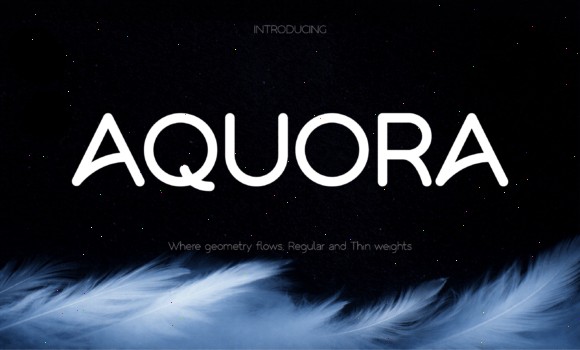
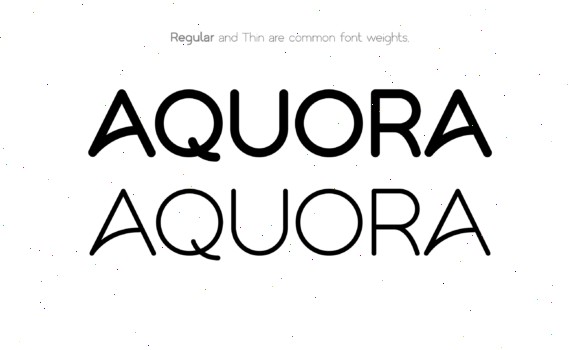
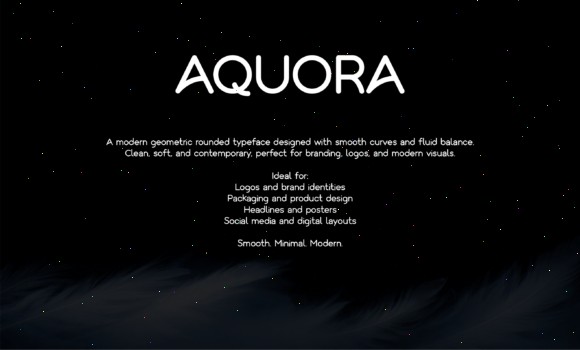
Aquora blends geometric construction with smooth rounded curves, creating a very polished modern look. The proportions feel balanced and minimal without becoming generic.
What stands out most is the flow between letters. It feels refined in a way many trendy rounded fonts don’t.
Best for:
- Luxury tech branding
- Modern skincare brands
- Clean startup identities
- Packaging design
Aquora works particularly well when paired with minimal icon marks.
2. Grotesko
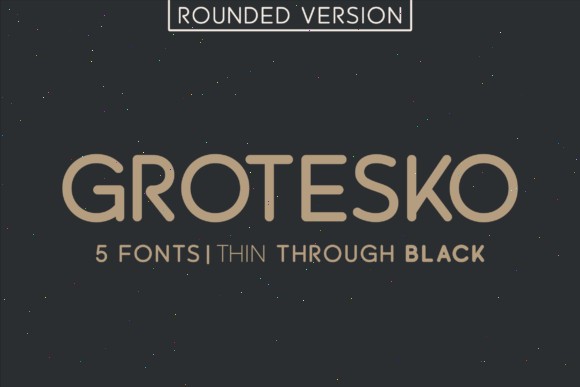
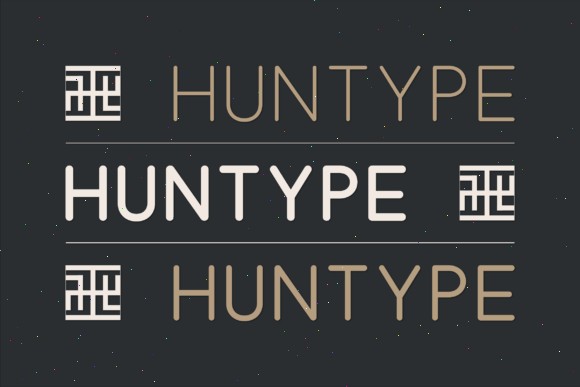
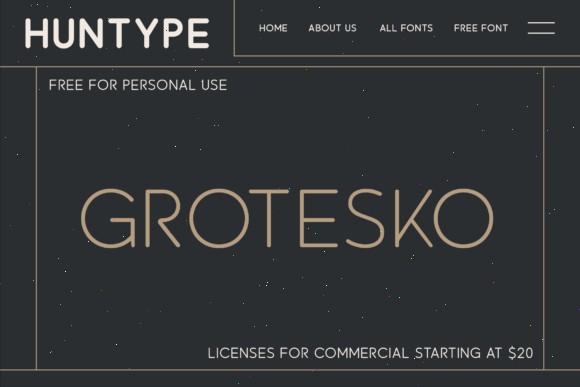
Grotesko leans into a cleaner all-caps aesthetic with subtle rounded edges and multiple weights.
This is the kind of typeface that works extremely well for:
- Streetwear logos
- Editorial branding
- Web headings
- Bold minimalist brands
The rounded black weight has strong visual impact without looking too aggressive.
One useful detail: the font family includes thin through black variations, making it flexible for larger identity systems.
3. Redzone
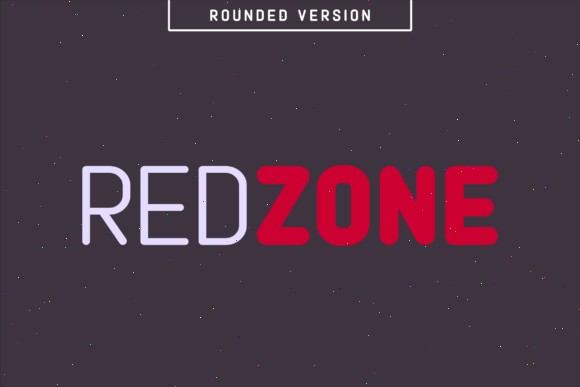
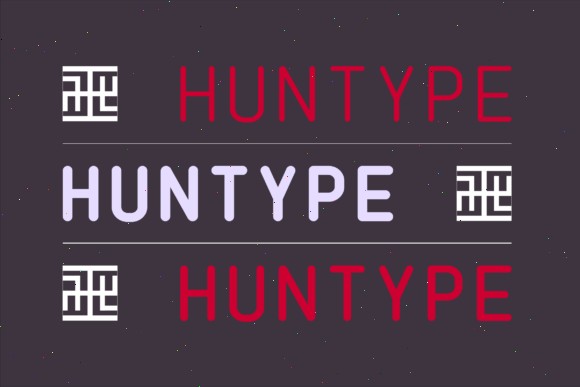
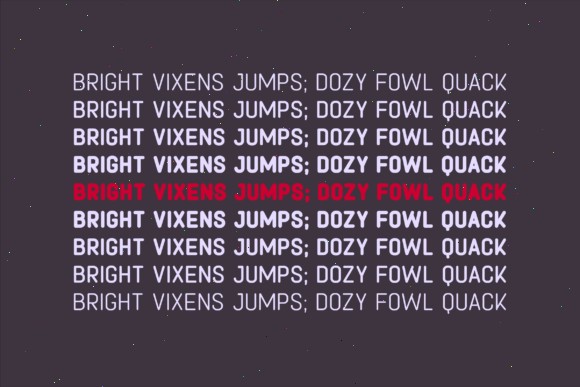
Redzone feels more athletic and energetic than most rounded sans serif fonts.
The uppercase construction gives it a sporty tone while the softened corners keep it approachable.
Best for:
- Esports branding
- Fitness products
- Gaming channels
- Performance-focused brands
The heavier weights look especially strong in logo lockups.
4. Vintage Corner
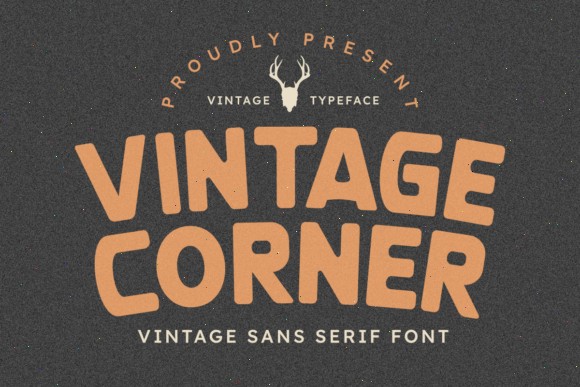
Vintage Corner mixes retro influence with rounded sans serif construction.
A lot of “vintage” fonts become difficult to use outside posters. This one stays practical.
Best for:
- Coffee shops
- Food packaging
- Apparel brands
- Retro-style logos
The rounded corners help the vintage look feel softer and more contemporary.
5. Kavo Inline
Kavo Inline has one of the most distinctive visual personalities in this list. The inline construction gives logos depth without requiring additional effects.
It feels futuristic and architectural at the same time.
Best for:
- Fashion branding
- Automotive projects
- Tech identities
- Album covers
This font performs best in larger logo applications rather than tiny interface text.
6. Nebulosa
Nebulosa combines futuristic styling with semi-rounded endings that soften the overall look.
One thing designers often appreciate here is the large family size. Multiple styles make it easier to build cohesive branding systems.
Best for:
- Sci-fi inspired branding
- Tech startups
- Gaming interfaces
- Motion graphics
The display versions work especially well in title treatments.
7. Red Giant
Red Giant keeps things bold and minimal while adding slight rounded corners for smoother typography.
The regular and outline versions pair nicely together for layered branding.
Best for:
- Bold packaging
- Podcast branding
- Social graphics
- Sports branding
It feels modern without becoming overly trendy.
8. Kryptone
Kryptone sits closer to premium minimalist branding. The rounded geometry is subtle, which makes it more versatile for luxury-style projects.
Best for:
- Fashion labels
- Architecture studios
- Minimal logos
- High-end product branding
The lighter weights are particularly clean for editorial layouts.
Do rounded fonts work for luxury branding?
They can. Minimal rounded fonts like u003ca href=u0022https://fontiverse.com/?p=8979u0026amp;preview=true#8-kryptoneu0022u003eKryptoneu003c/au003e or u003ca href=u0022https://fontiverse.com/?p=8979u0026amp;preview=true#1-aquorau0022u003eAquorau003c/au003e create a softer premium look without losing elegance.